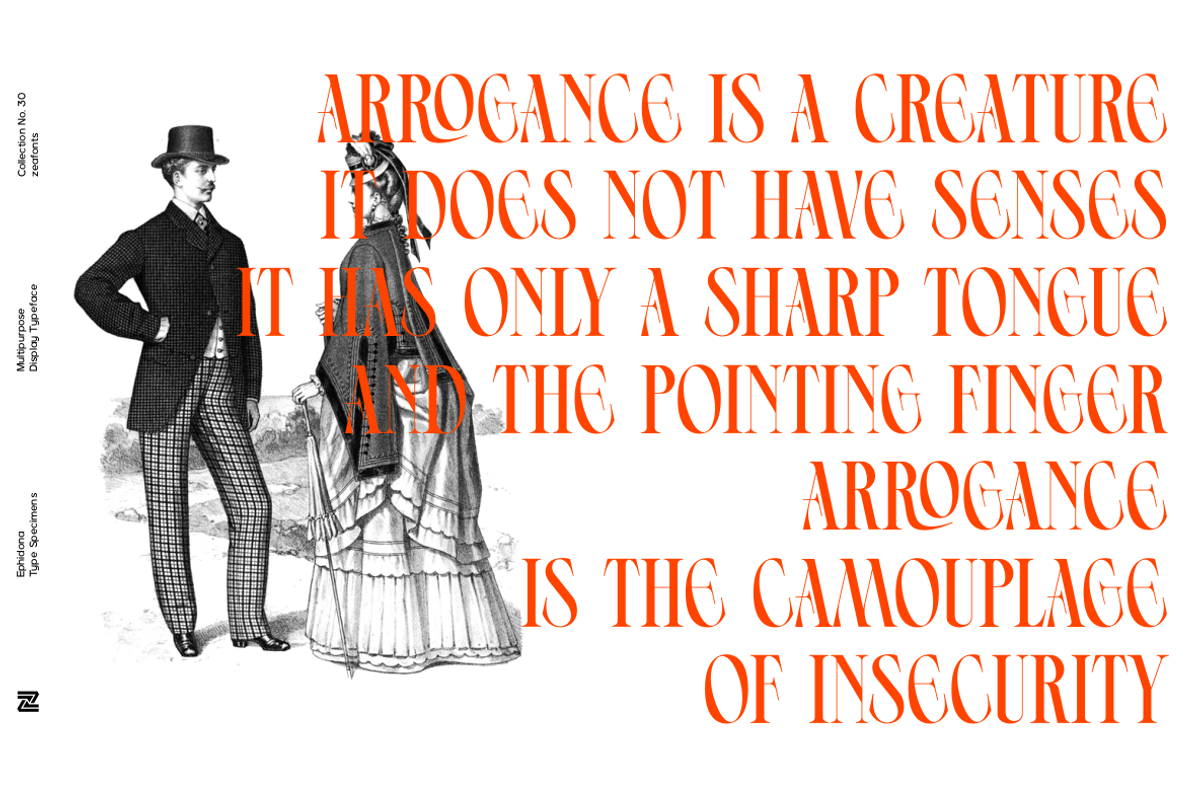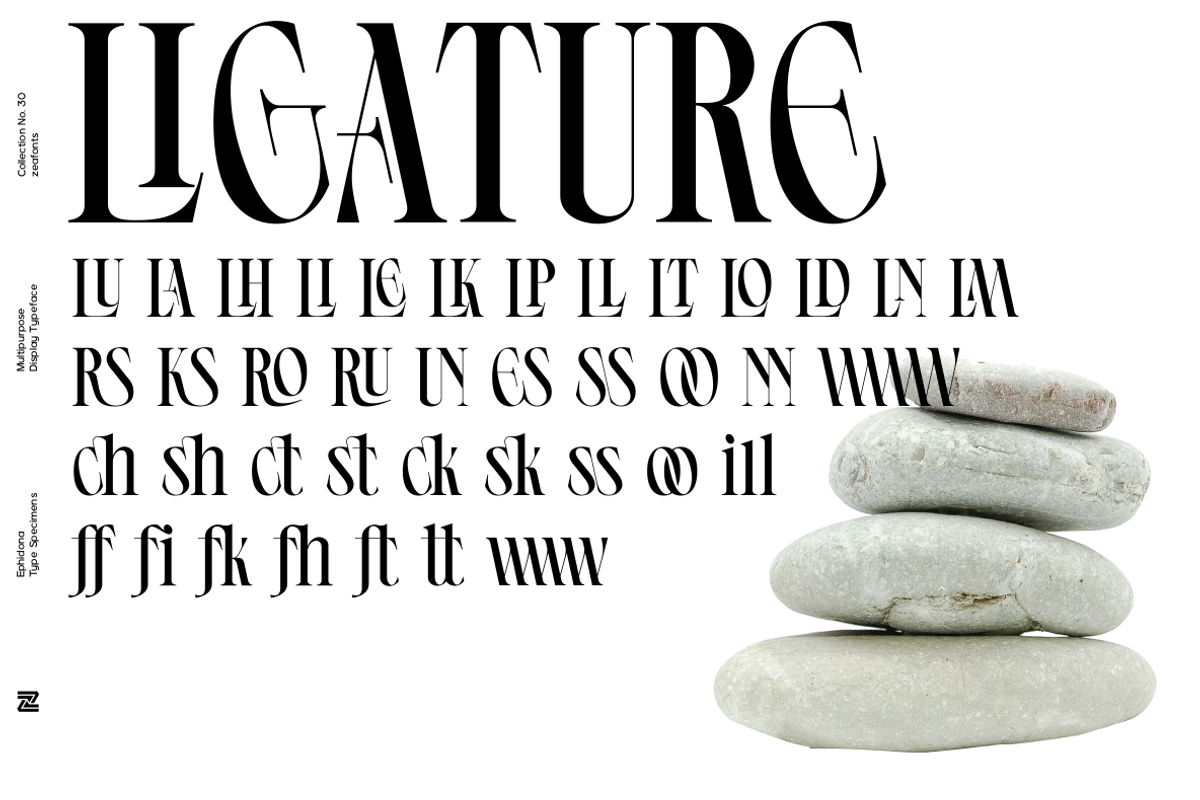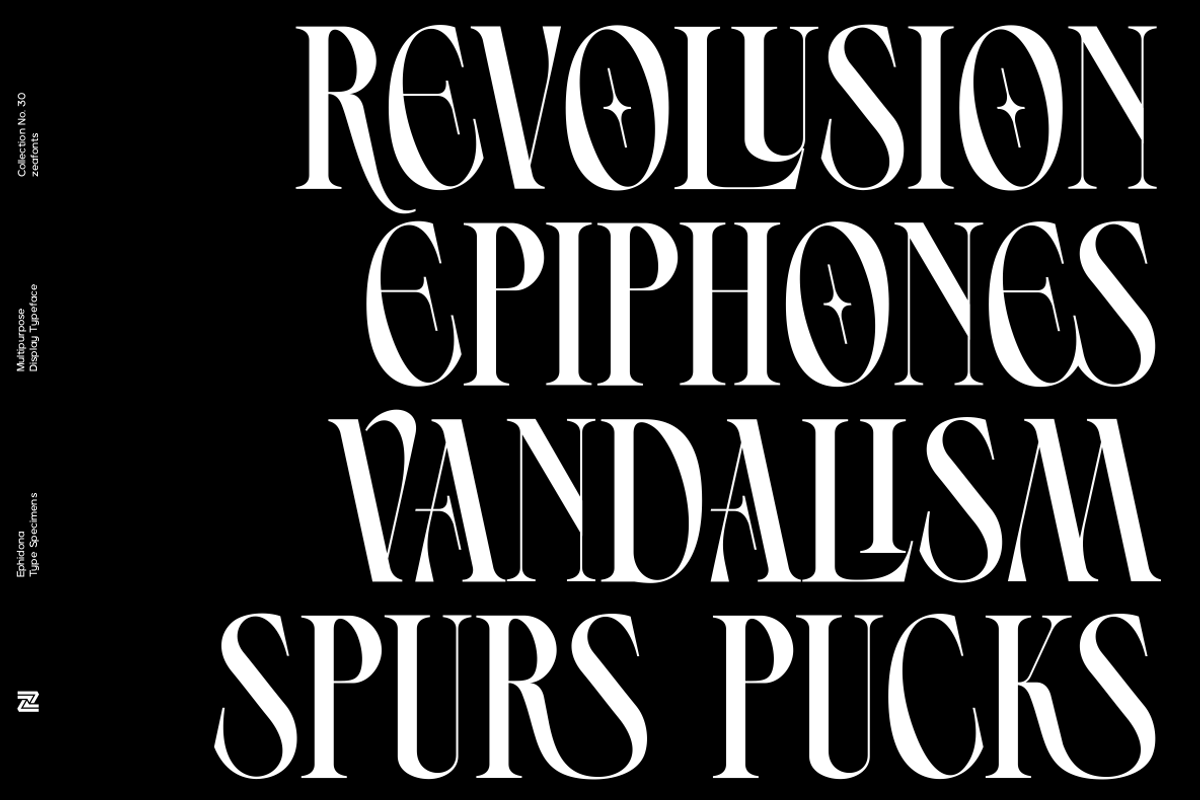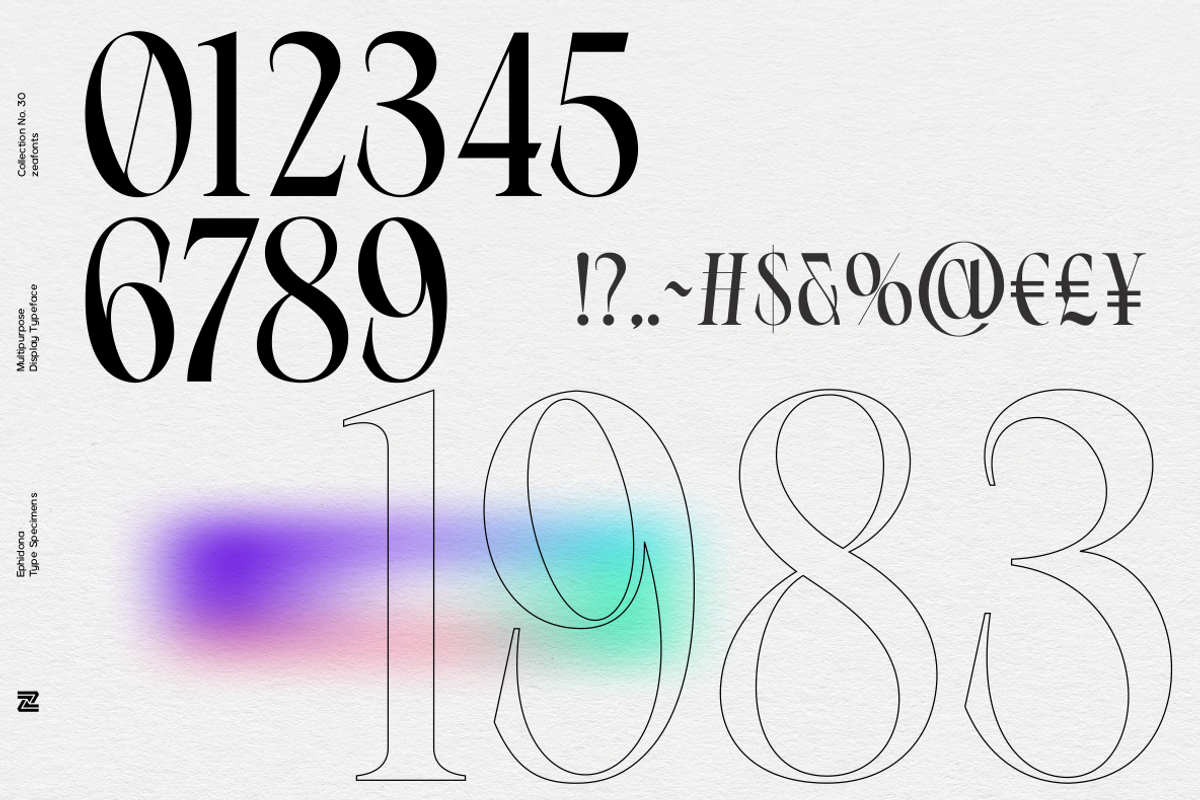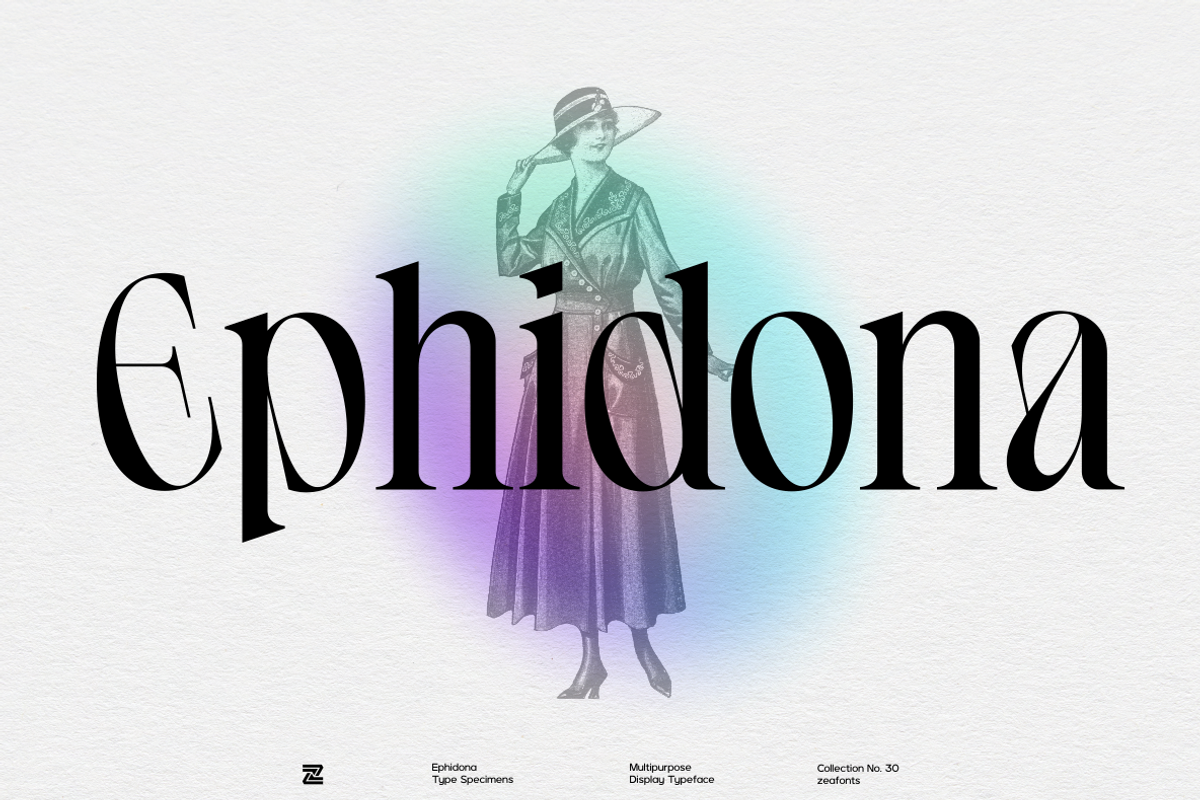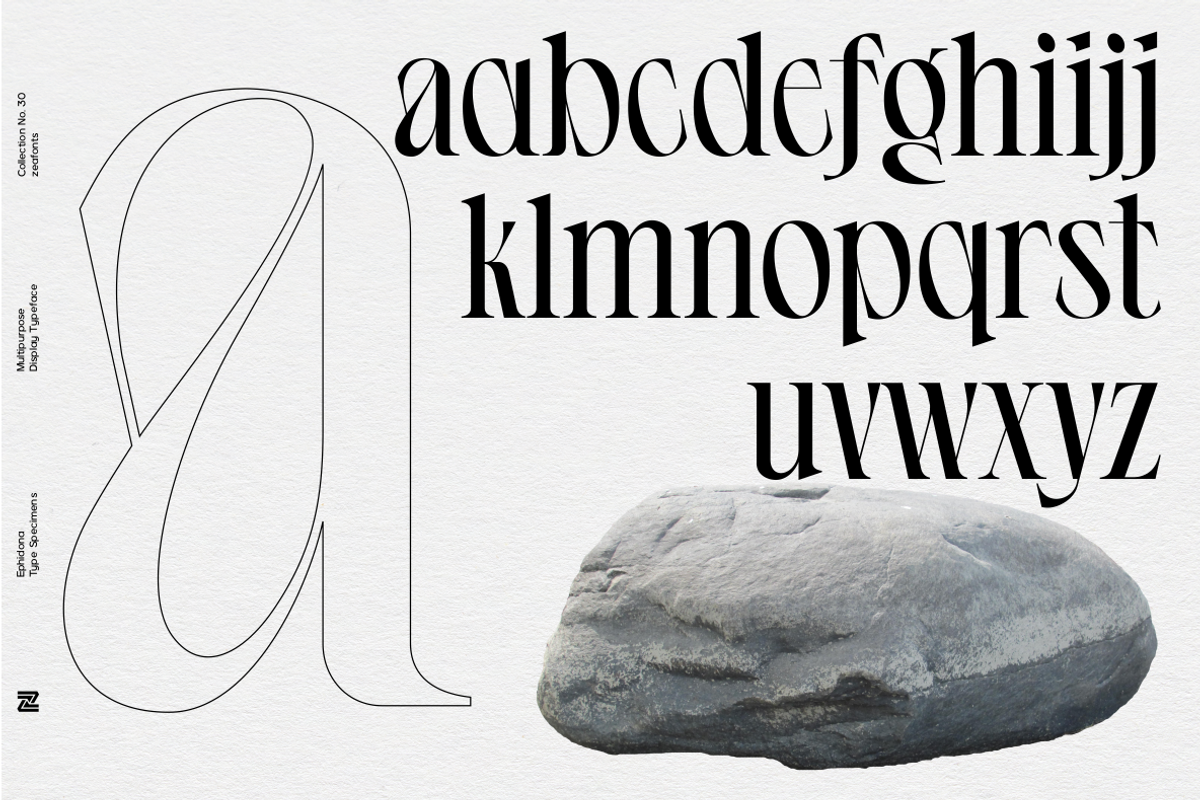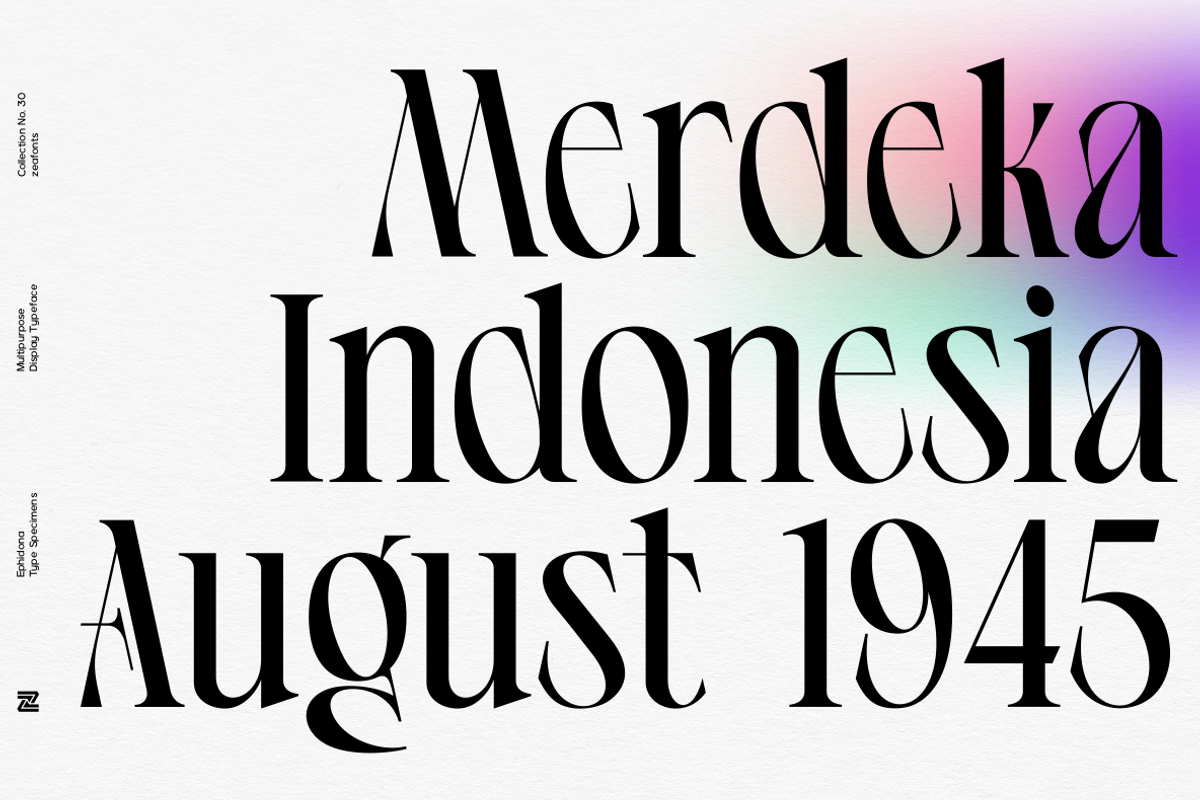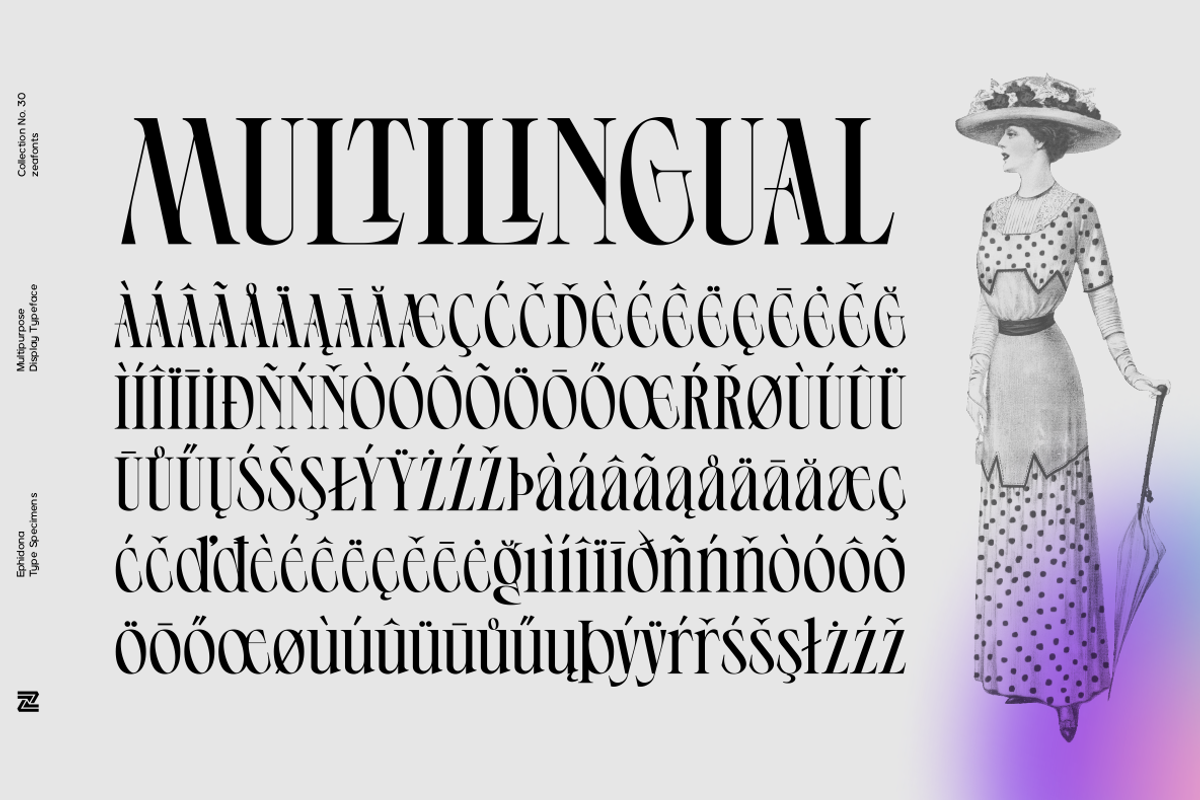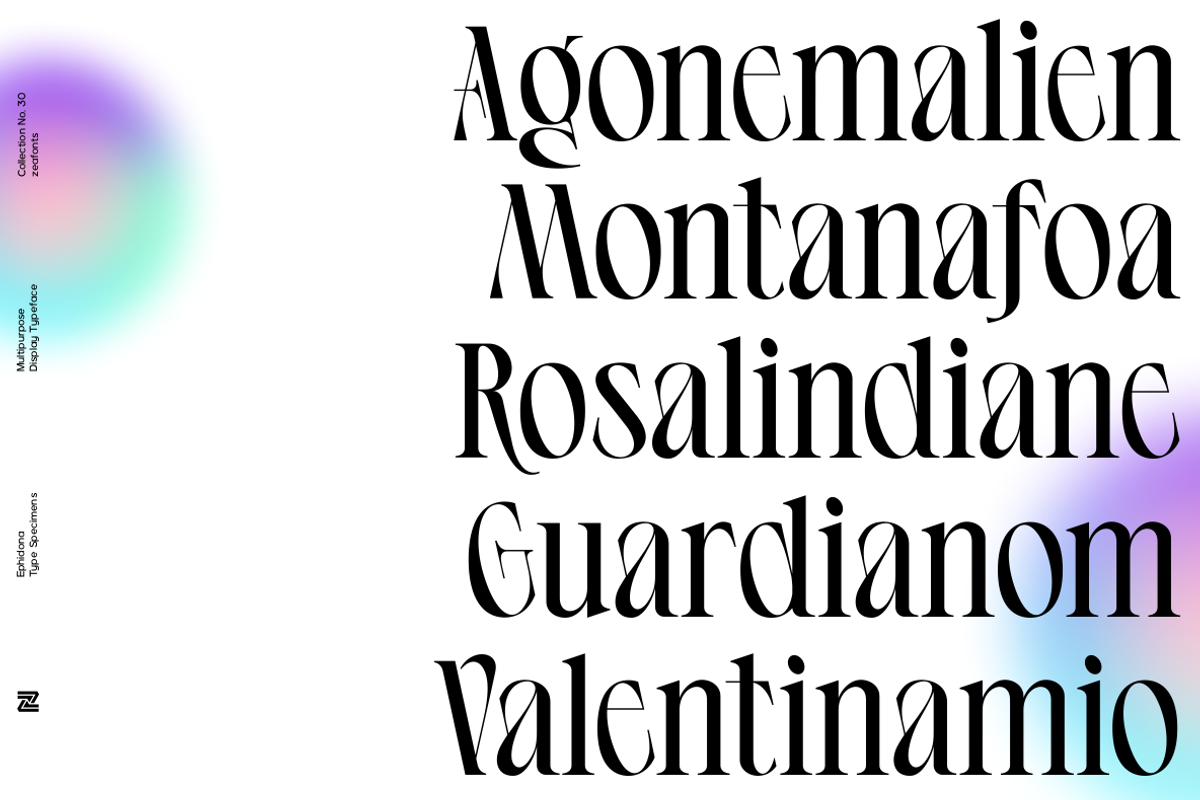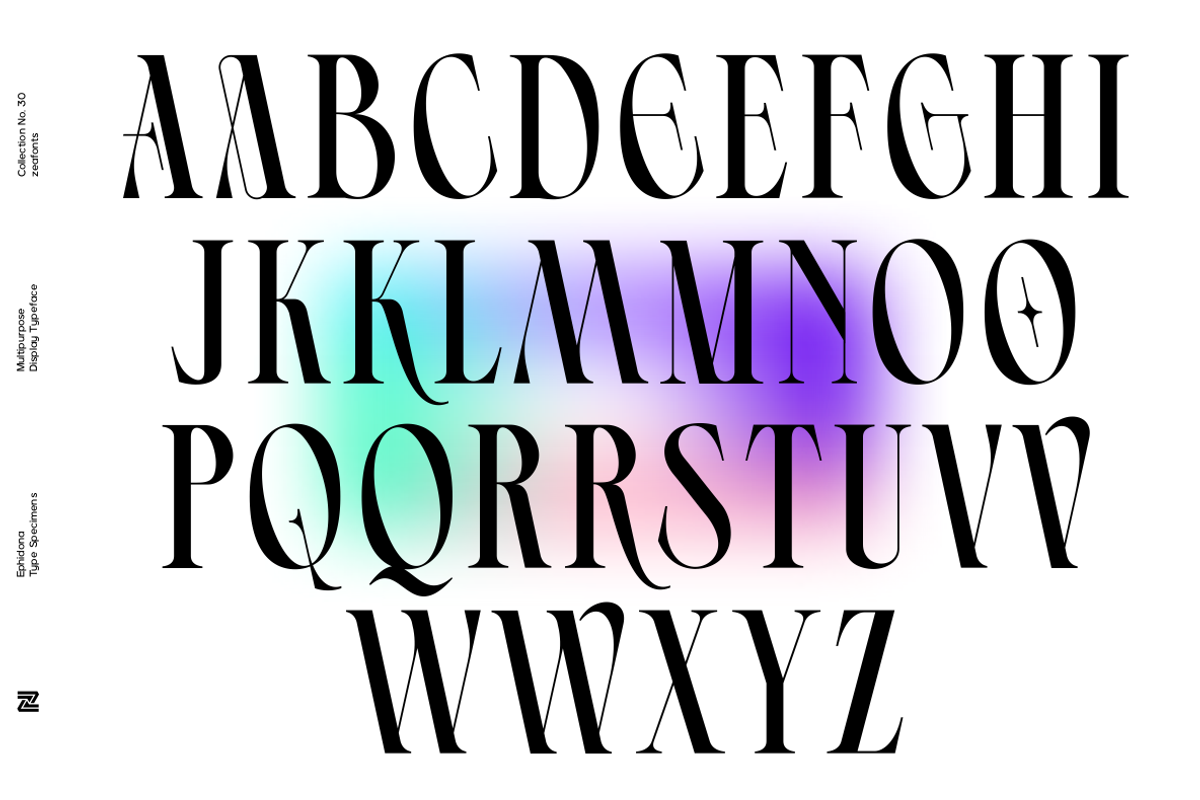
Ephidona
Ephidona is a sophisticated multipurpose display typeface that strikes a masterful balance between classical heritage and avant-garde flair. Defined by its dramatic high-contrast strokes and razor-sharp serifs, the font evokes the refined elegance of early 20th-century editorial design while introducing unexpected, fluid curves in characters like the lowercase 'a' and uppercase 'E'. This blend of vintage structure and contemporary rhythm makes it an ideal choice for high-end branding, luxury packaging, and commanding fashion mastheads that require a distinct, artisanal signature.